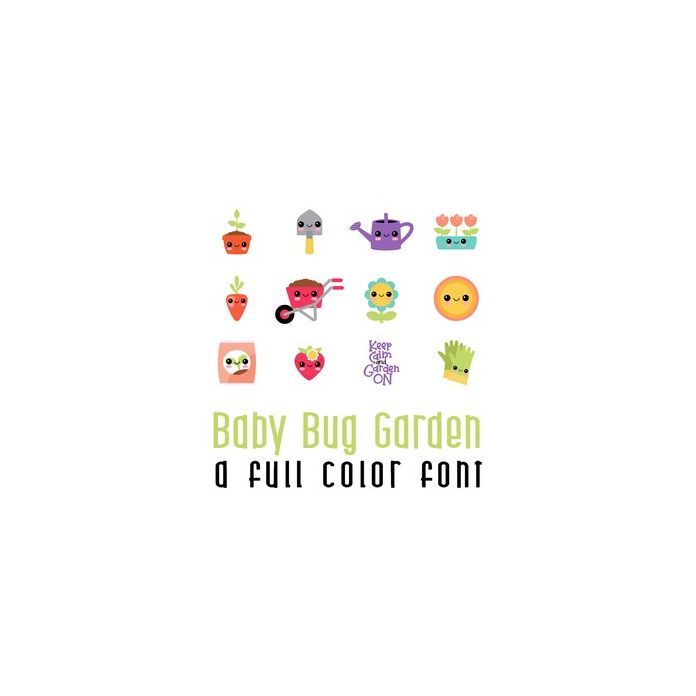
This adorable full-color doodlebat font features 26 kawaii style gardening elements. Perfect for cards, crafts, gifts, decor, parties, planner stickers, scrapbook pages and more!. Perfect for cards, crafts, gifts, decor, scrapbook pages, planner stickers, and more!